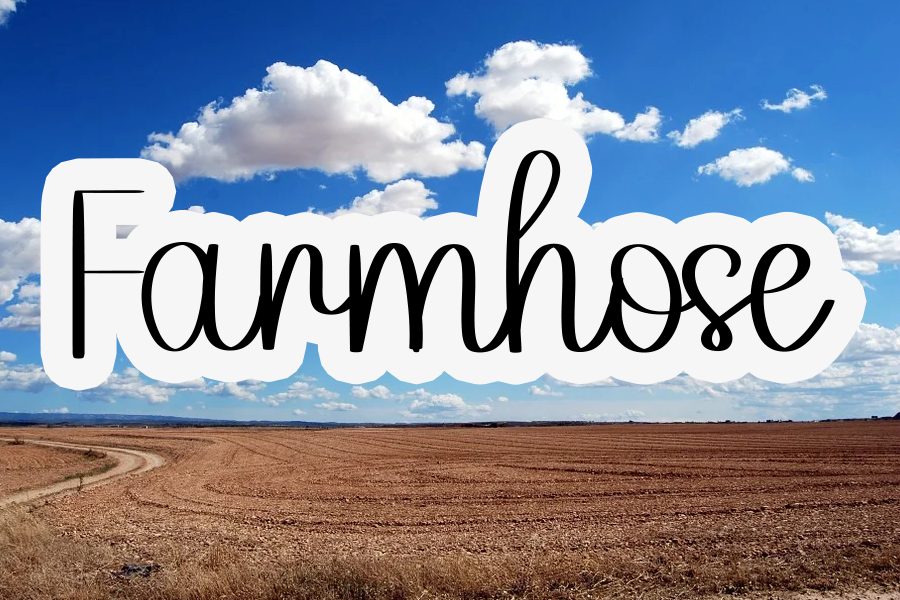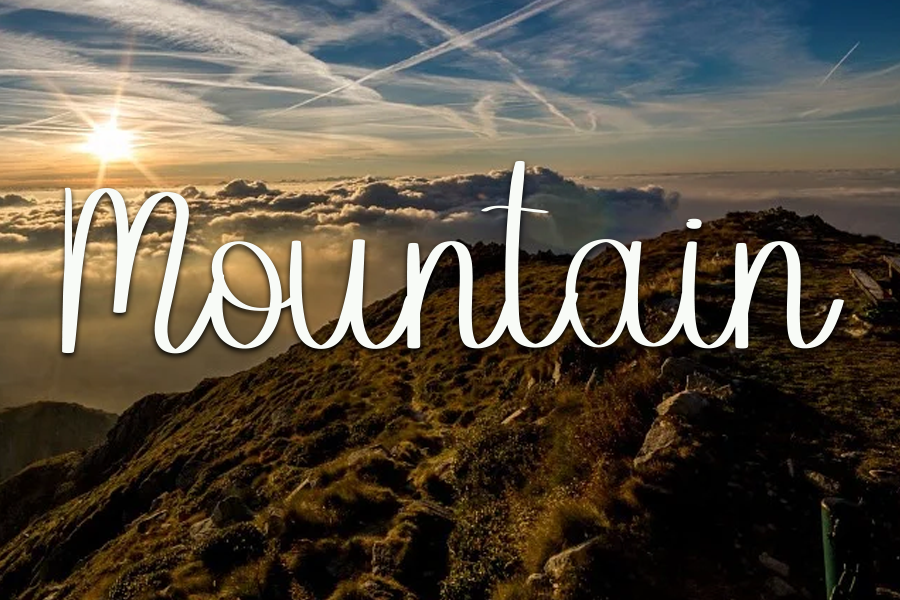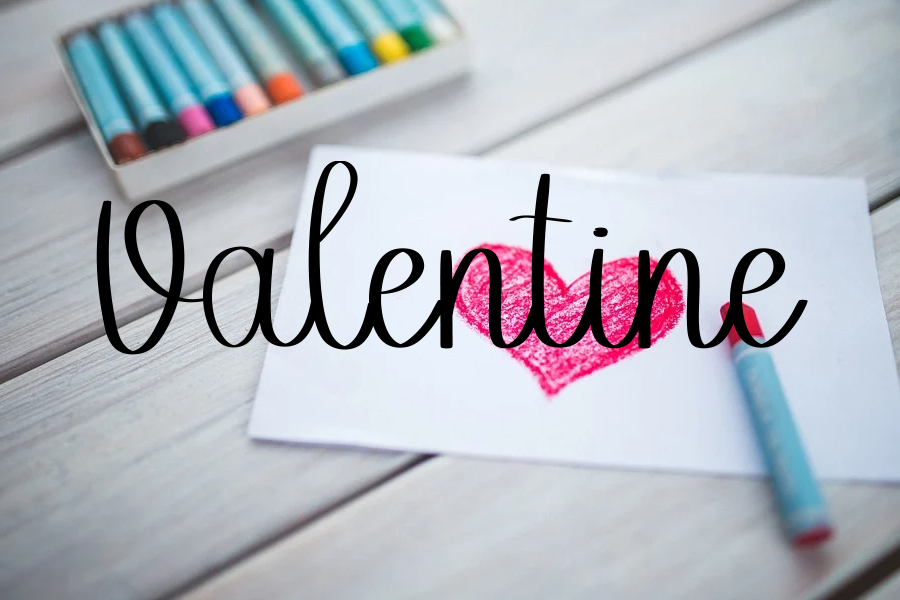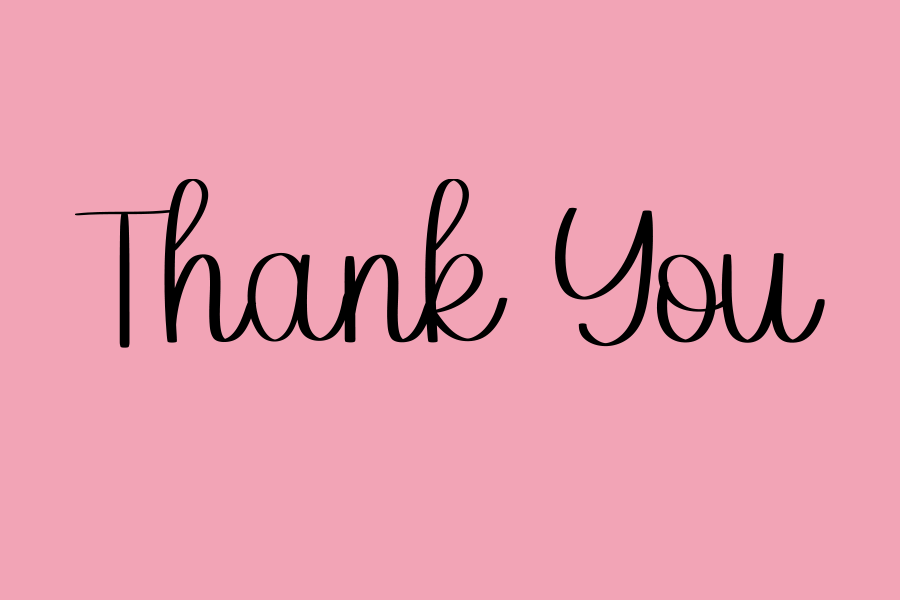
Hamster Beautiful Font
This is a relaxed handwritten font that has a modern yet whimsical style. It will undoubtedly immerse your designs into a fun, cool world.
It’s a simple handwriting perfect for weddings, wall hangings, decorations, products and more